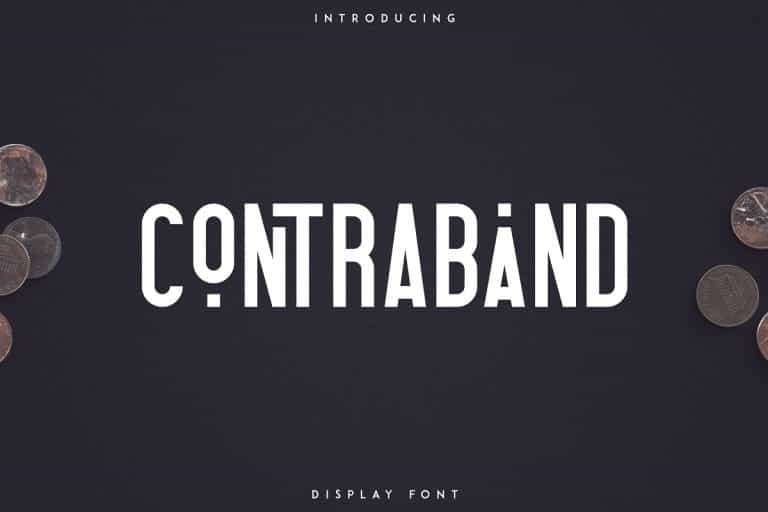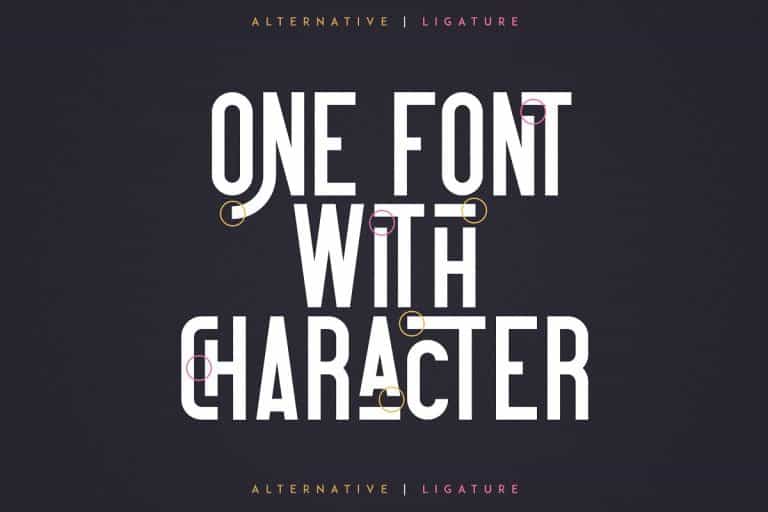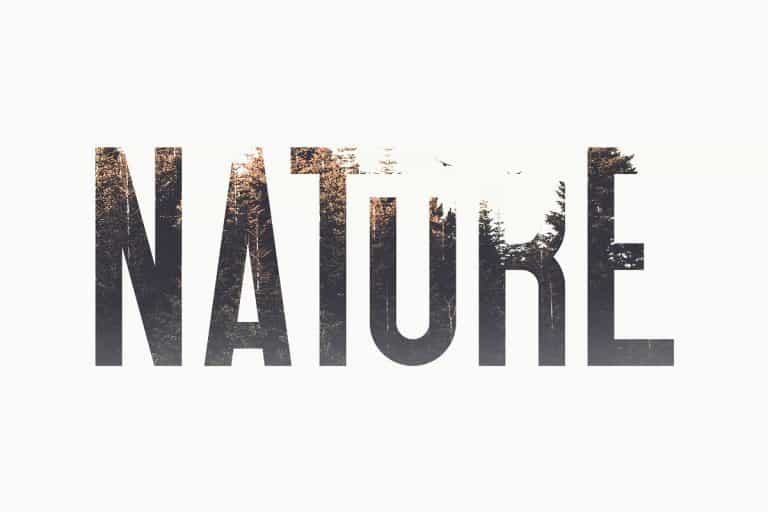
The Contraband Font is a retro display font made by VPcreativeshop. Contraband Display Font is a vintage and clean display font that has many alternative glyphs, ligatures, and multilingual support. This is a font that can be used in big and small sizes, it’s very flexible. Contraband is suitable for the branding projects, home-ware designs, product packaging, magazine headers – or as just a chic text overlay to any background image.